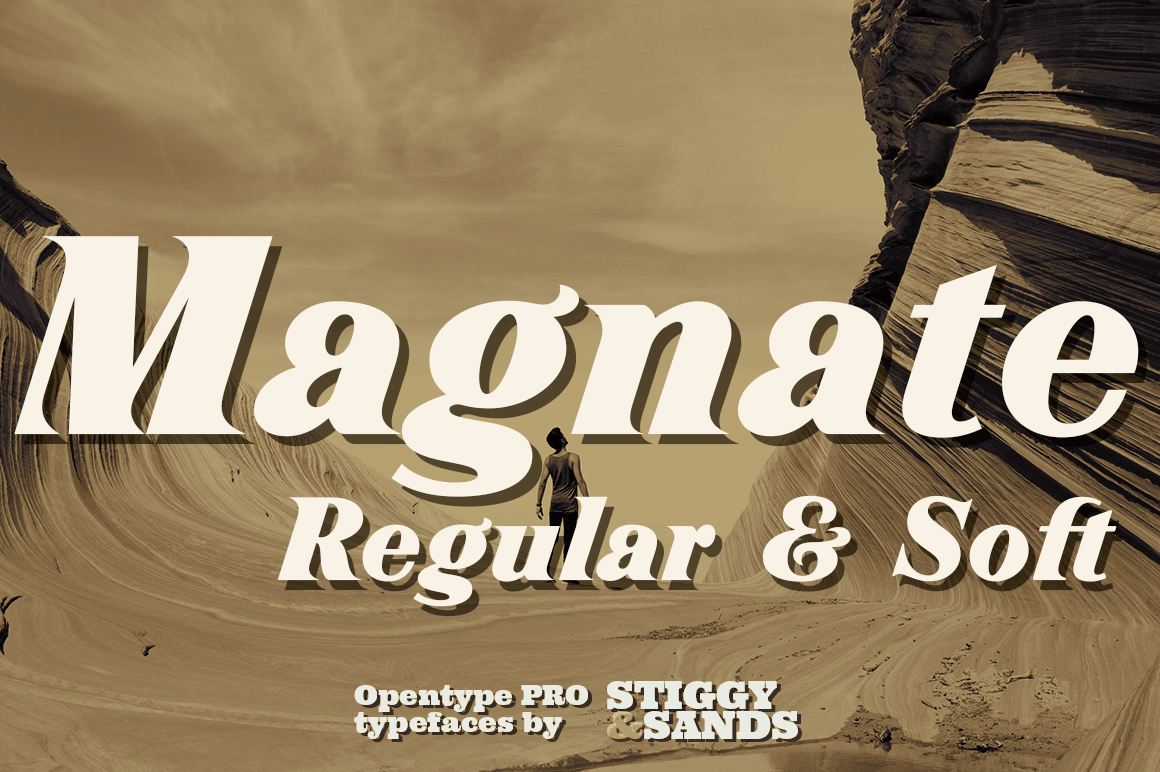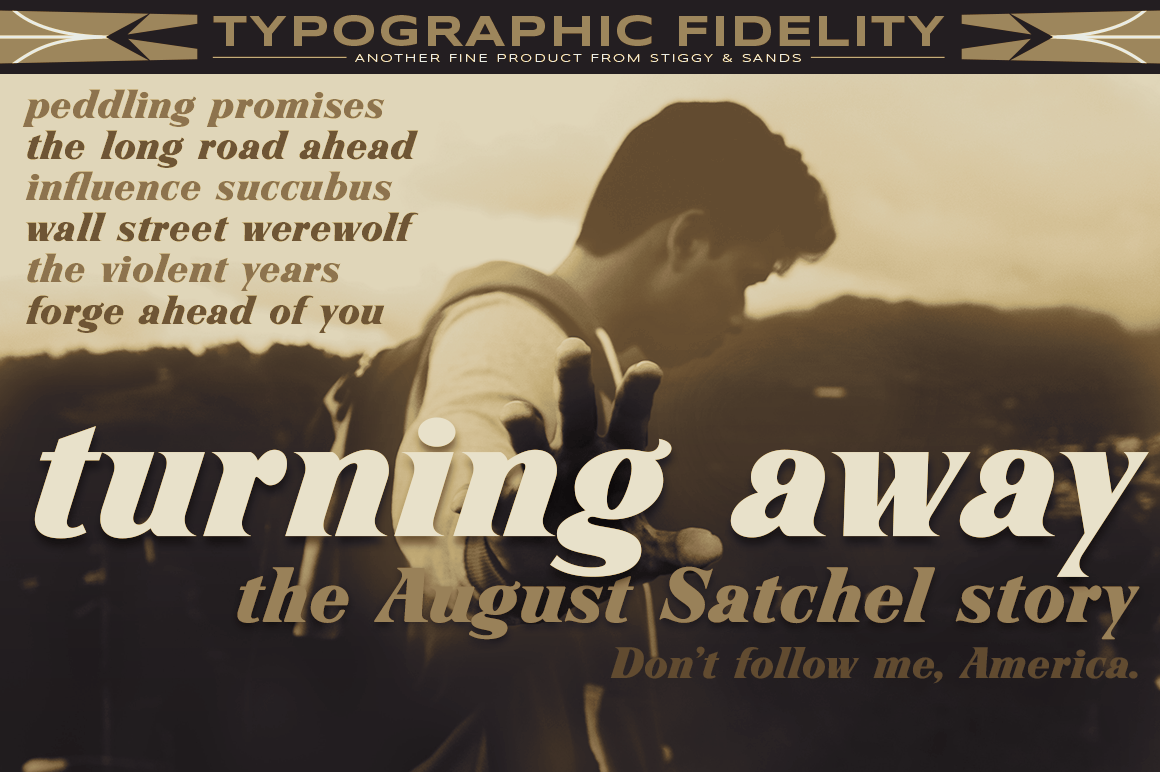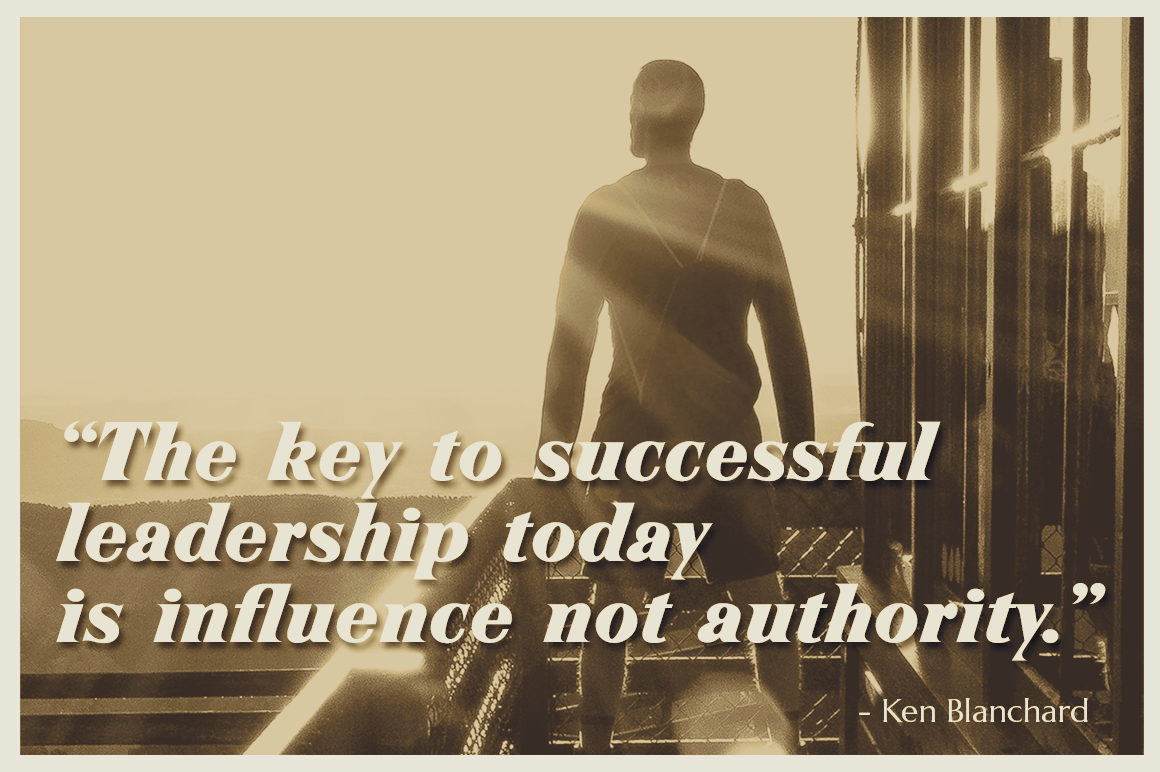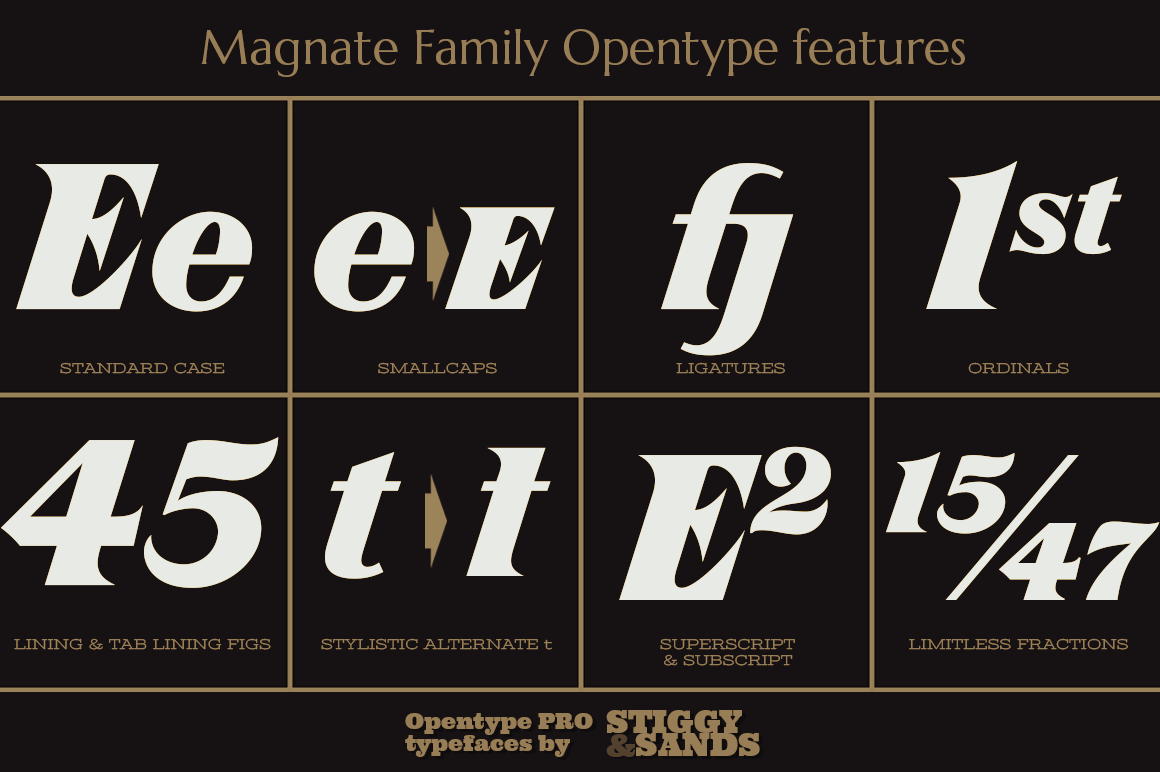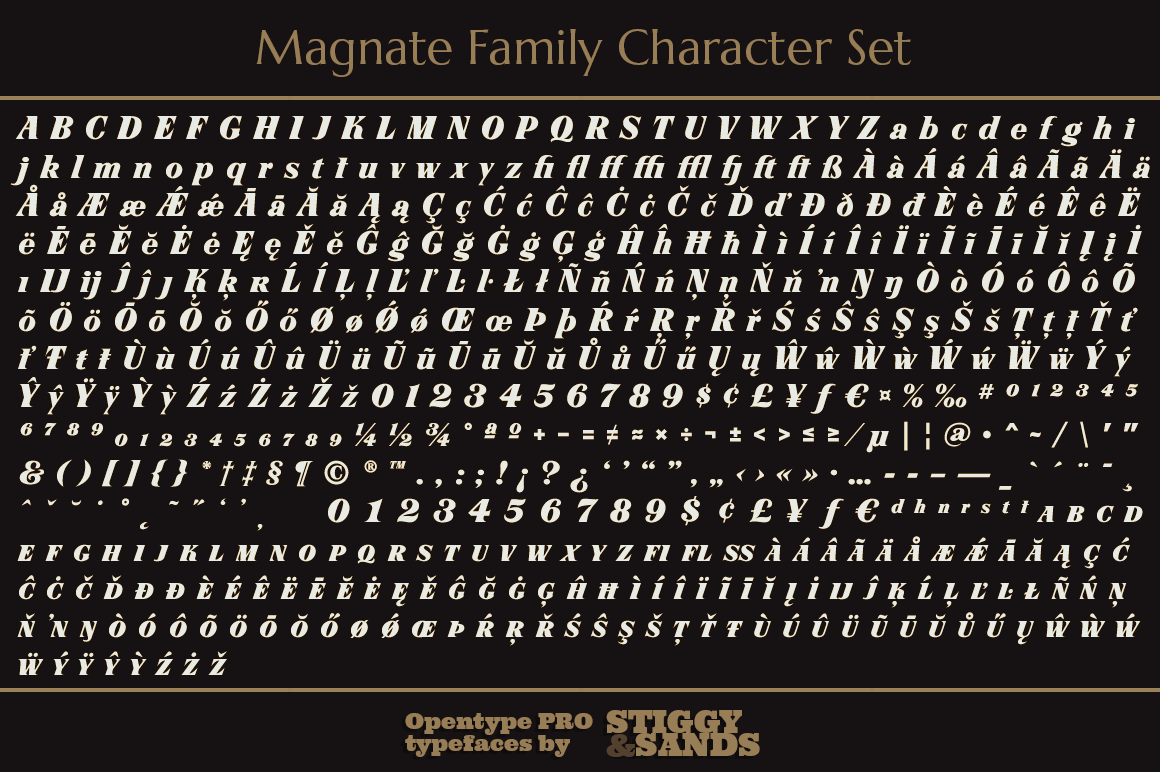
Magnate
Font Family by Stiggy & Sands
The Magnate Family began as a digitization of a film typeface from LetterGraphics known as "Wilshire". What began as a basic glyphset was fleshed out with a full character set with a smallcaps feature. We also decided to add a slightly more delicate side to Magnate, softening up the sharp flair serifs just a little.
Opentype features include:
• Full set of Inferiors and Superiors for limitless fractions.
• SmallCaps feature.
• Tabular and Proportional figure sets.
• A small collection of Standard Ligatures.
• A Stylistic Alternates feature for an alternate lowercase t style.
Approx. 687 Character Glyph Set: Each style of Magnate comes with a glyphset that includes standard & punctuation, international language support, and additional features.